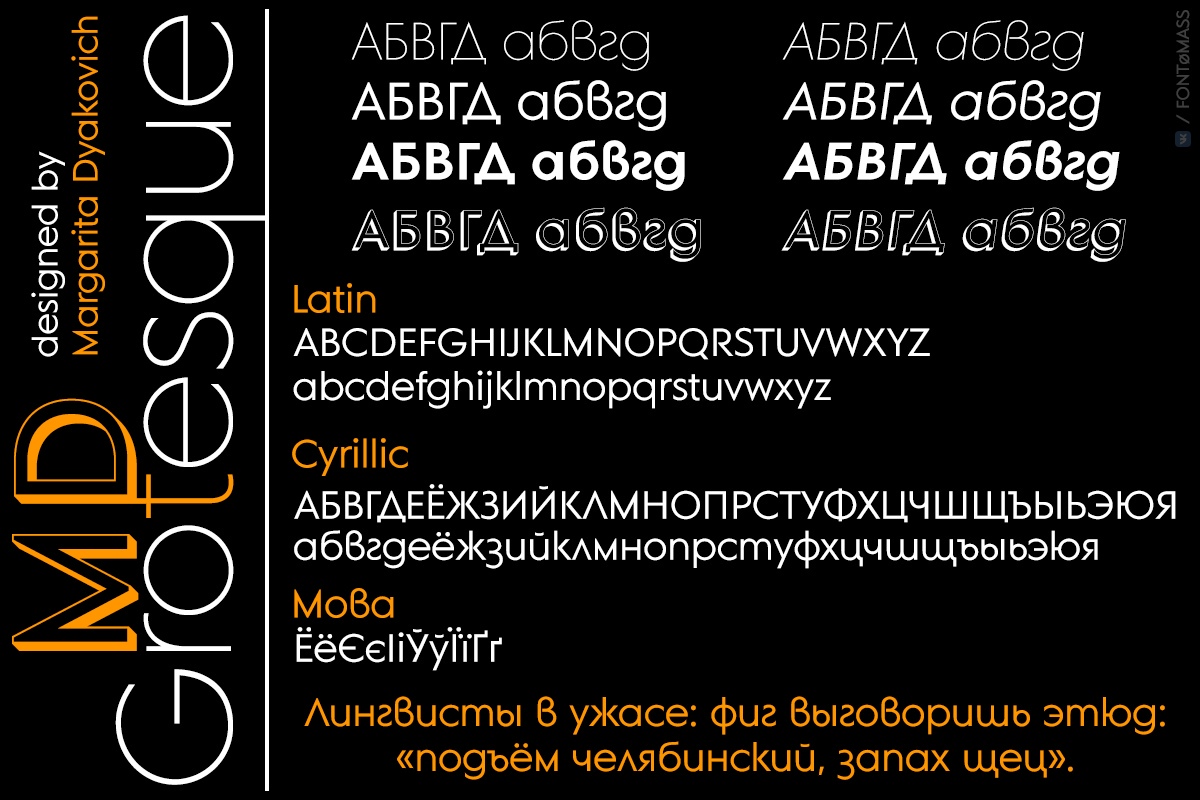
MD Grotesque Font
MD Grotesque Font is perfect for modern corporate identities, sleek tech company branding, contemporary editorial layouts, minimalist web interfaces, progressive architectural signage, industrial design presentations, clean product packaging, professional business communications, and cutting-edge digital applications.
What makes MD Grotesque Font exciting is its refined geometric precision combined with subtle humanist warmth that creates exceptional versatility and timeless appeal. The font's carefully balanced proportions and optimized character spacing deliver superior readability across all media formats while maintaining distinctive personality, making it the ultimate choice for organizations seeking sophisticated typography that performs flawlessly in both digital and print environments.
MD Grotesque Font family includes comprehensive weight variations from Thin to Black, along with matching italic styles and condensed versions, providing designers with complete typographic systems for complex hierarchical layouts and diverse branding applications across multiple platforms.
This sophisticated typeface represents the evolution of grotesque sans-serif design principles for contemporary communication needs. MD Grotesque Font Free Download offers designers and brands an exceptional opportunity to enhance their visual communications with a font that seamlessly adapts to modern design requirements while honoring classical typography traditions. Whether you're developing corporate brand systems, designing editorial publications, or creating user interface experiences, this font family delivers uncompromising quality and professional excellence.
The meticulously engineered letterforms ensure optimal performance at any size, from large-scale environmental graphics to small-screen mobile applications. Advanced OpenType features include contextual alternates and stylistic sets for enhanced customization.
MD Grotesque Font distinguishes itself through its remarkable balance of functionality and character, proving that contemporary sans-serif design can achieve both technical excellence and distinctive personality. This exceptional typeface elevates every application while maintaining the clarity and professionalism demanded by modern communication standards.